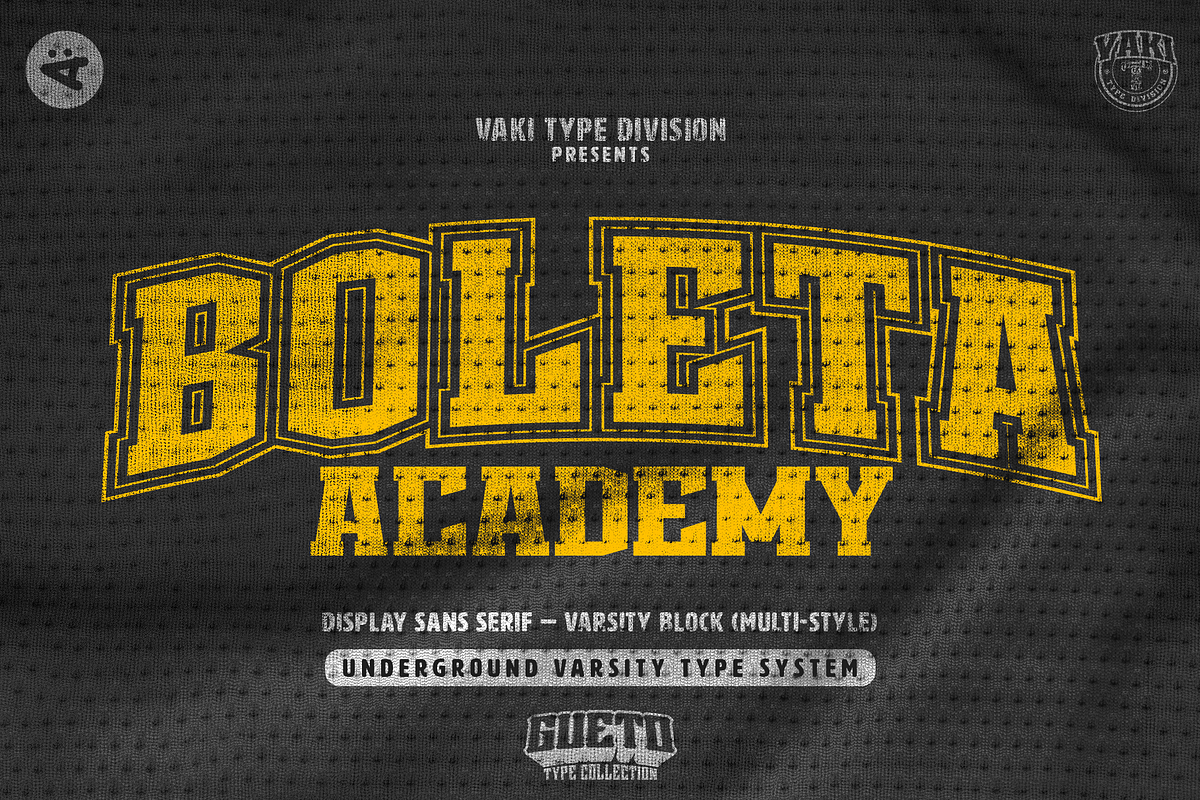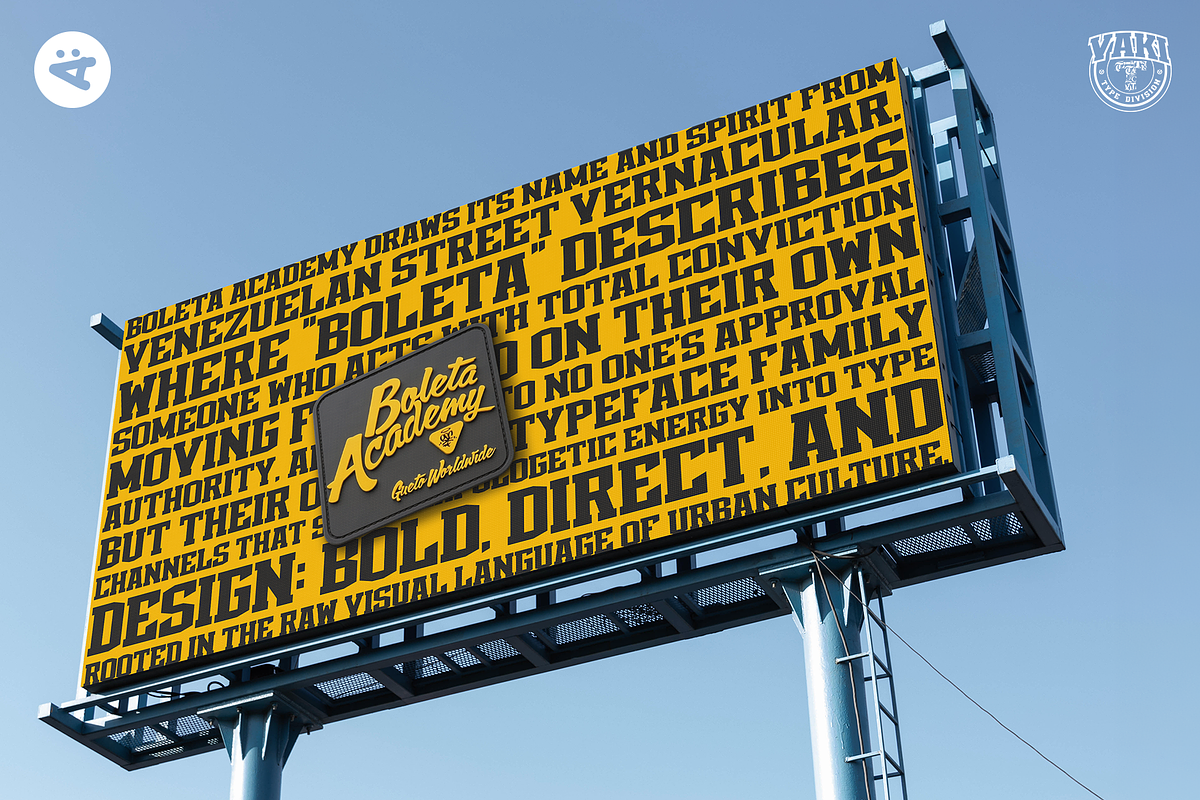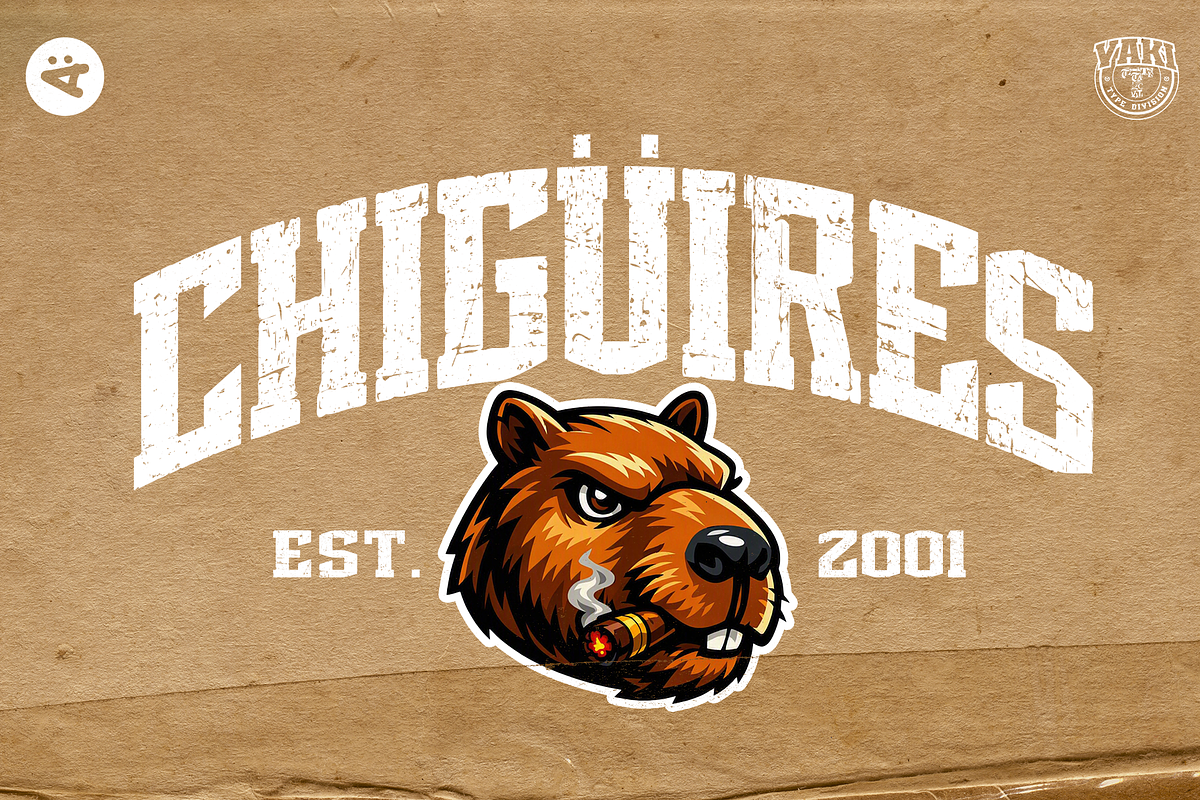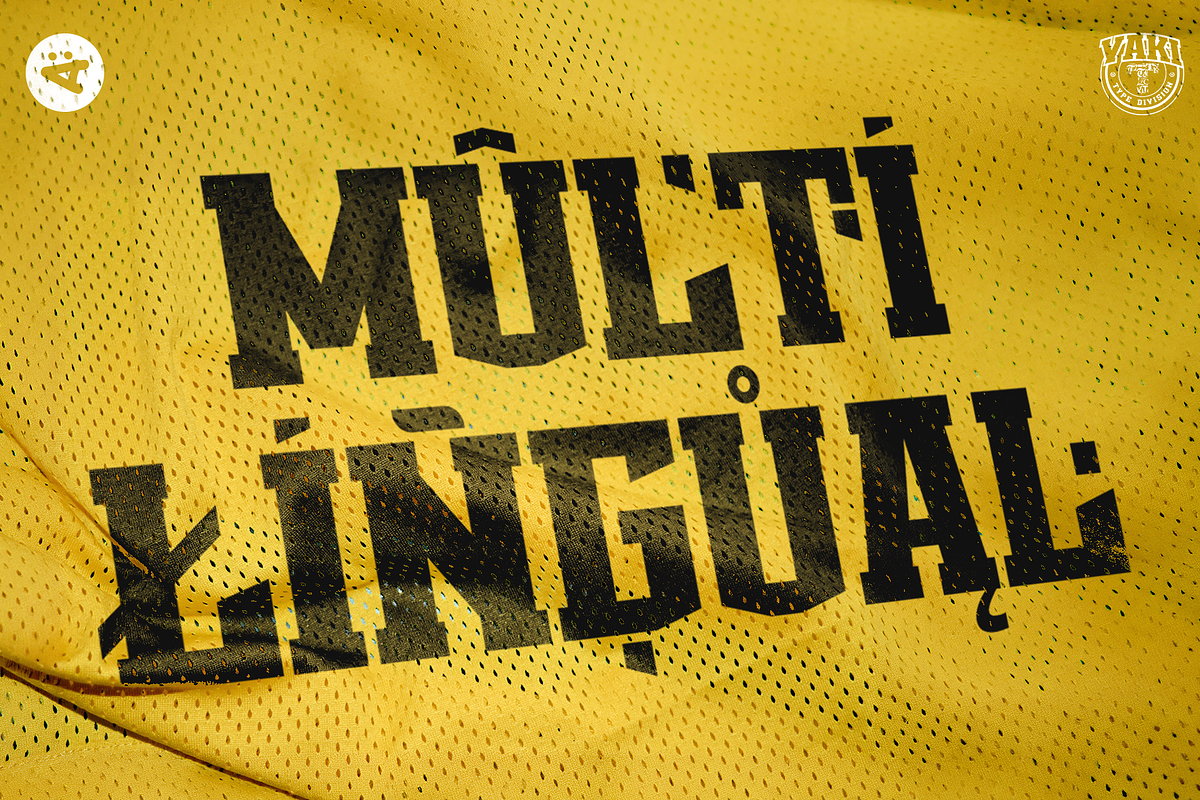
BOLETA ACADEMY
Released by KÄLETRE, BOLETA ACADEMY is a collegiate varsity block typeface built for headlines, sports branding, and streetwear graphics. Part of the GUETO Underground Varsity Type System, it ships in Regular, Worn, Condensed, and Condensed Inline styles, solid, weathered, tight, or outlined, each ready to command attention with bold, no-nonsense character.
Technical Details:
Style: Display Sans Serif · Block Type Wide / Varsity
Glyphs: 332 · All Caps
Support: 91 languages · Latin Extended
OpenType Features: kern
Recommended use: Urban signage, bold branding, high‑impact visual campaigns
GUETO Underground Varsity Type System by KÄLETRE. A typographic system built from underground academic aesthetics, social tension and identity-driven visual language.